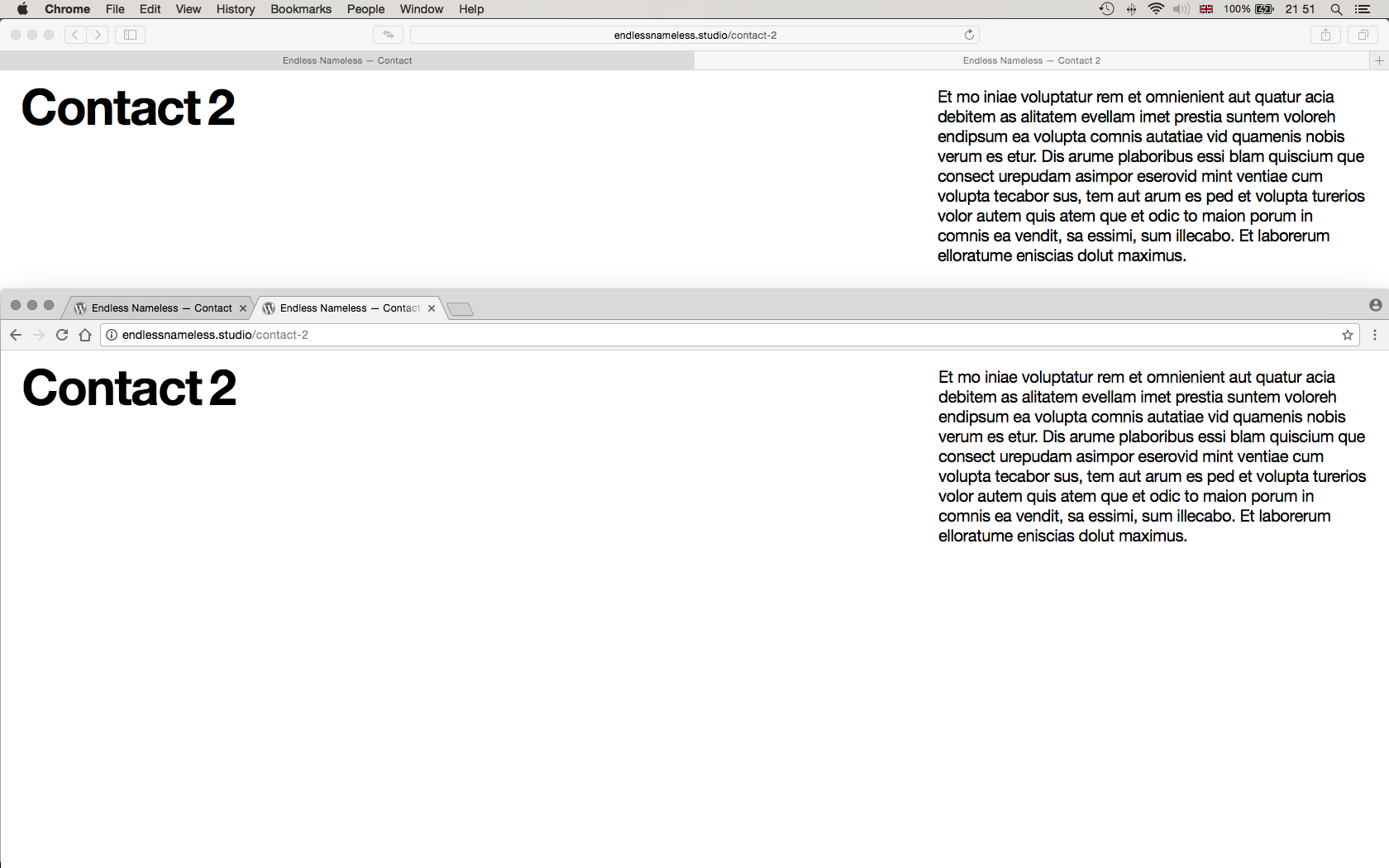
Web fonts only displaying correctly on pages with fullscreen slider activated
I'm having problems getting web fonts to display correctly in my browser and have spent a few hours banging my head to narrow it down.
Basically, I have two web fonts installed: Helvetica Neue Regular and Helvetica Neue Bold, and I have noticed that they only display correctly, i.e. crisp and sharp, in Safari, but only on pages that have the fullscreen slideshow activated. On pages in Safari without the slideshow activated, they look swollen and, well, pretty terrible. In Chrome, I can't get them to display correctly regardless of whether or not the slideshow is activated—they're constantly swollen; Regular looks more like Medium.
I've made two screenshots that, hopefully, will illustrate the issue. They consist of two pages: one named 'Contact', which has the slideshow activated and one named 'Contact 2' which has no slideshow activated. I've split the screen to show Safari at the top and Chrome at the bottom.
try to add this to your custom CSS:
body {
-webkit-font-smoothing: antialiased;
-moz-osx-font-smoothing: grayscale;
}